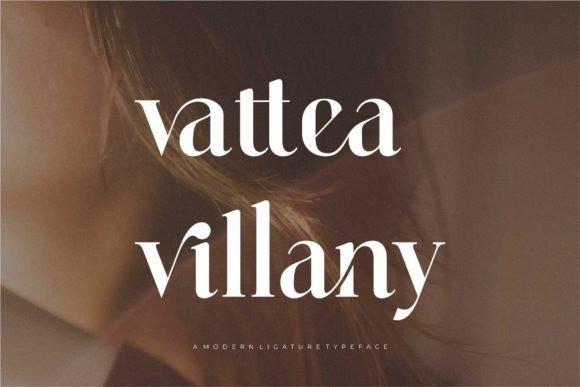
Vattea Villany Font
Vattea Villany Font is a ligature Serif font inspired by the famous minimalist logo. It’s perfect to design templates, brochures, videos, advertising branding, logos, invitation, layout design, elegant crafting, beauty design, and more.